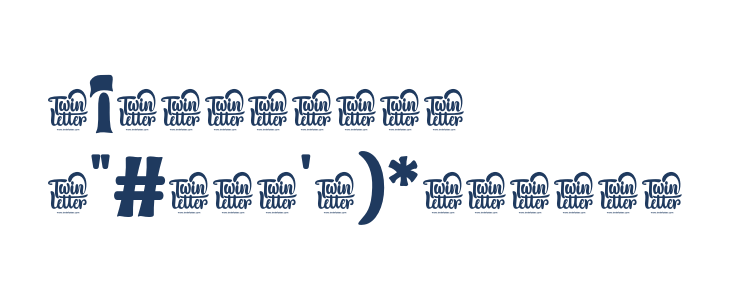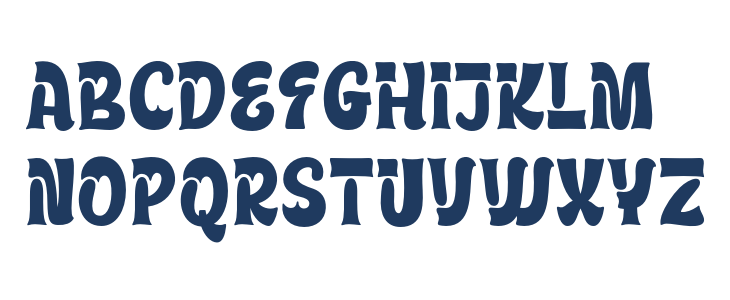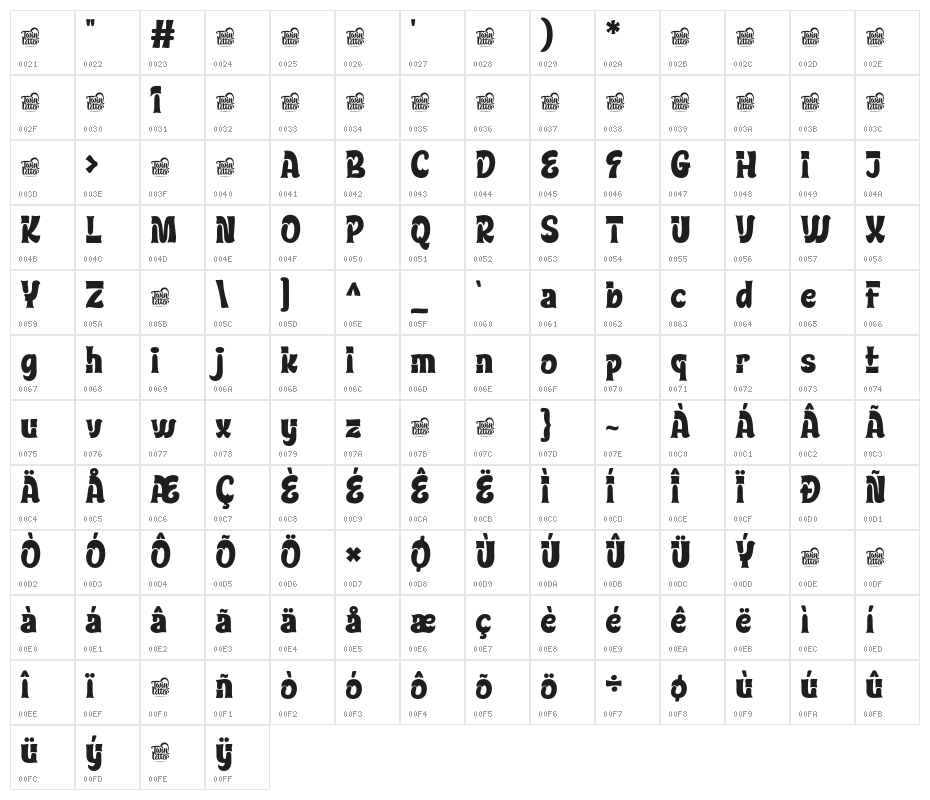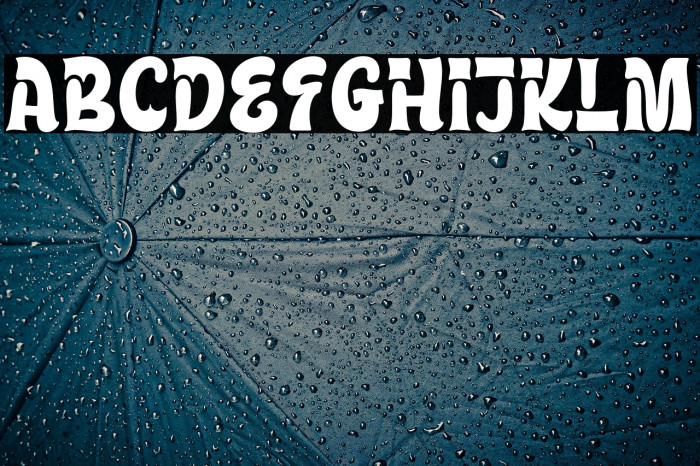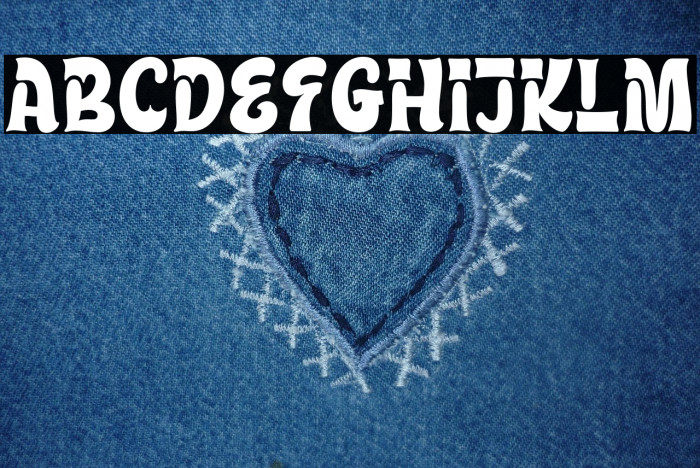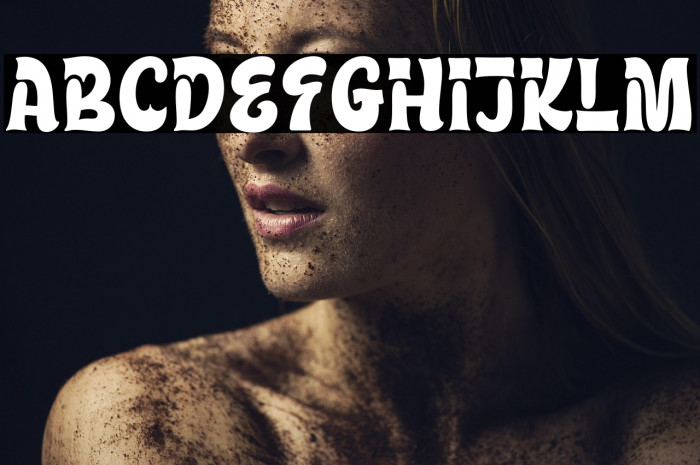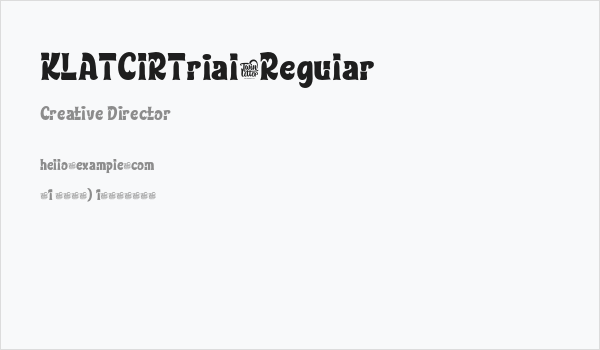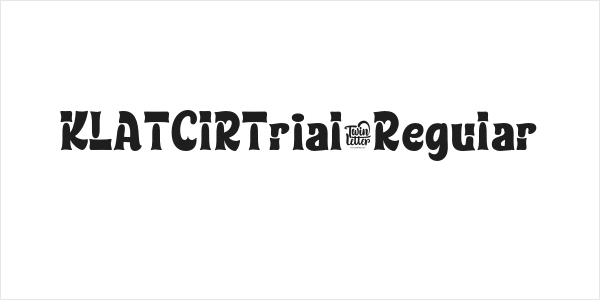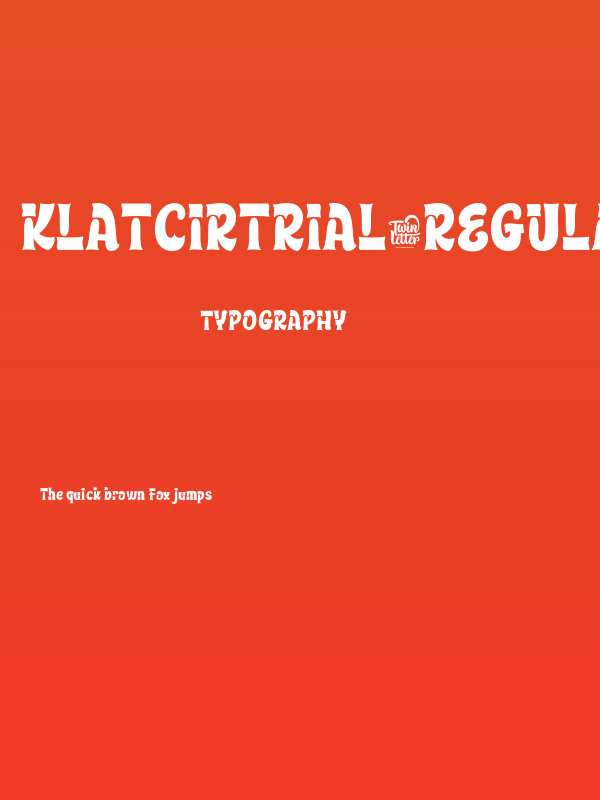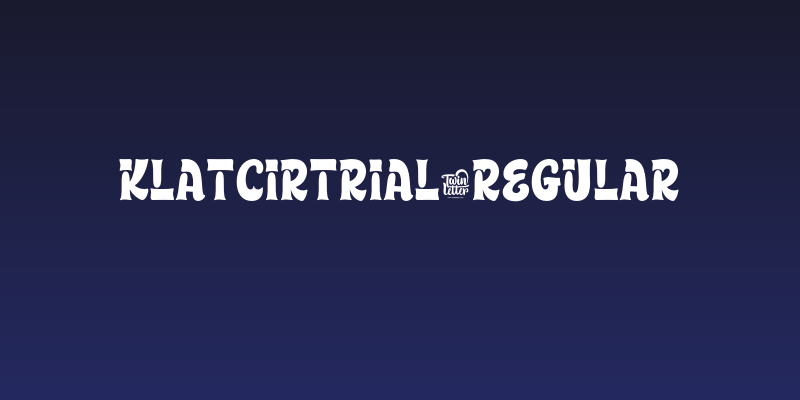
KLATCIRTrial-Regular Font
KLATCIRTrial-Regular Description
A bold, playful display typeface with exaggerated curves and thick, blocky strokes. The letterforms have a whimsical, almost cartoonish quality, with unique, irregular shapes and strong horizontal terminals. The font features high contrast between thick and thin areas, and the overall style is eye-catching and decorative.
| Overall Style | Decorative, Playful, Modern |
| Use Case | Headlines, Posters, Logos, Packaging |
| Proposed Projects | Posters, event flyers, children's books, branding for creative businesses, packaging, headlines. |